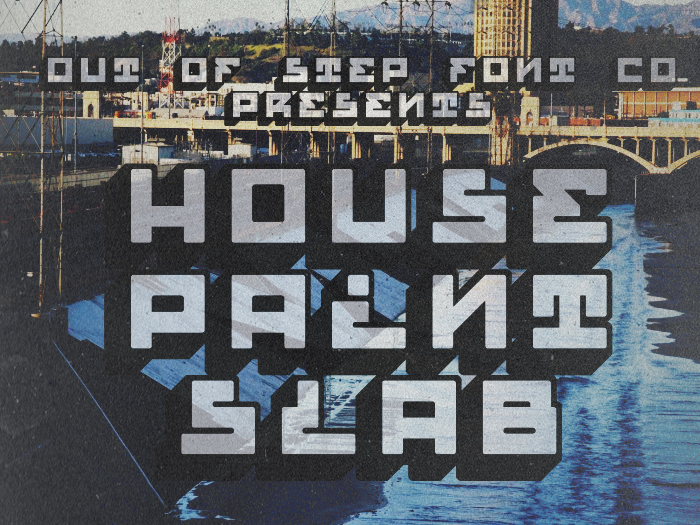
Font name: | House Paint Slab |
Author: | Out of Step Font Company |
Note by Out of Step Font Company | |
This is a tribute to the master house paint writers, who took writing to a new level with rollers and extension poles. Giant block letters and a thick shadow, west coast angles. |